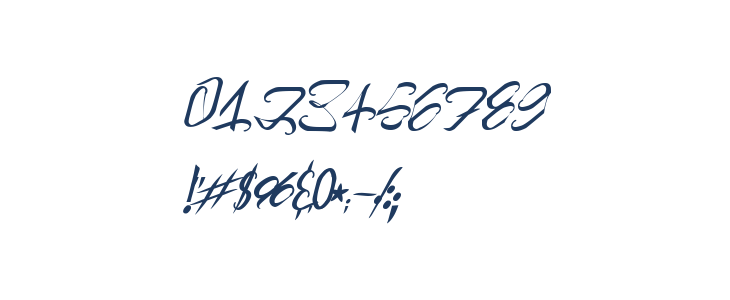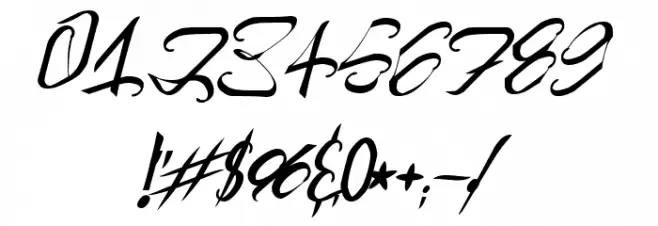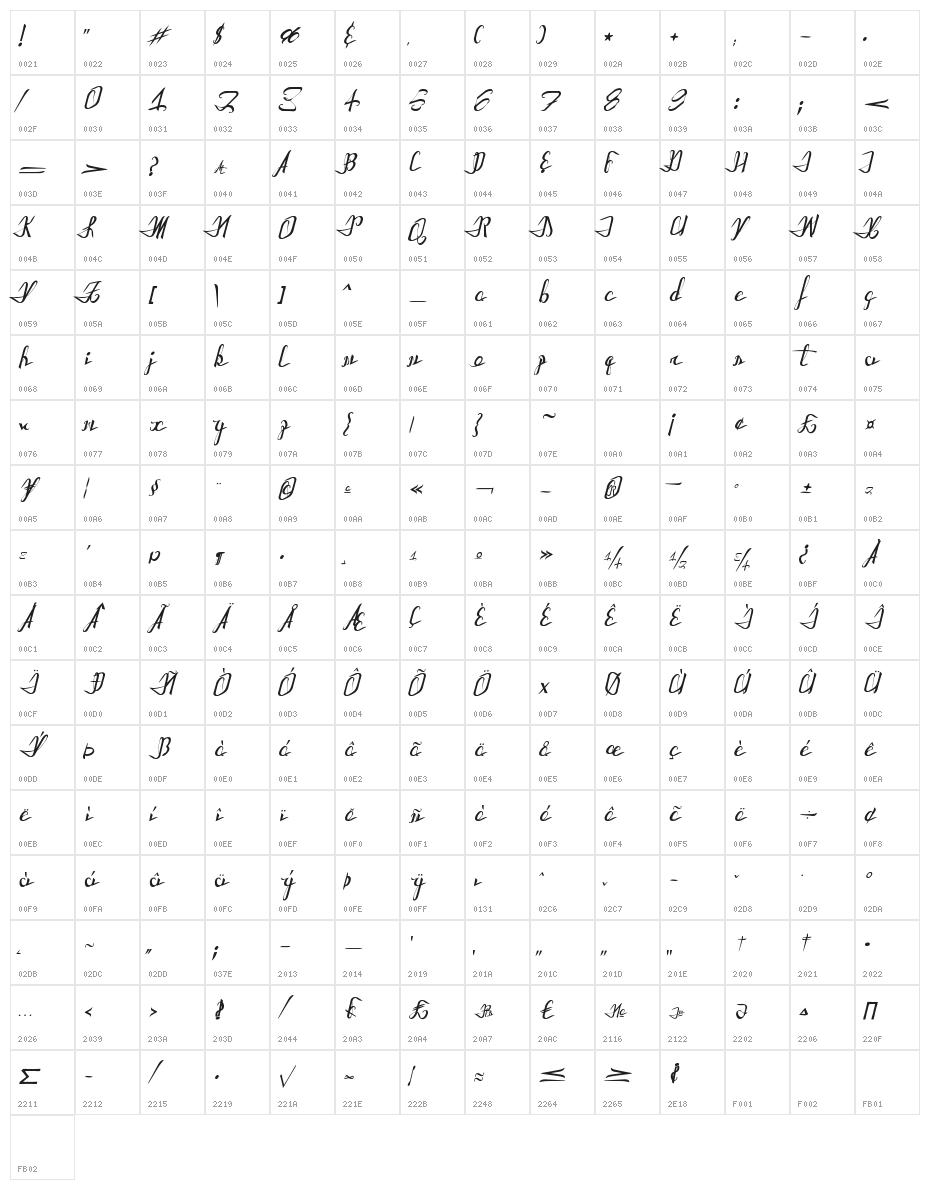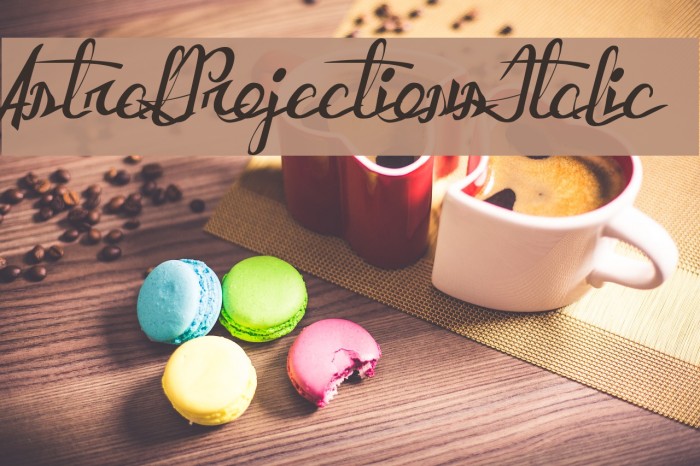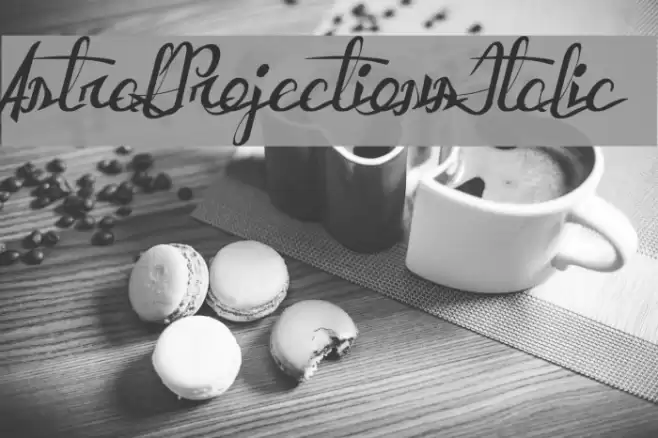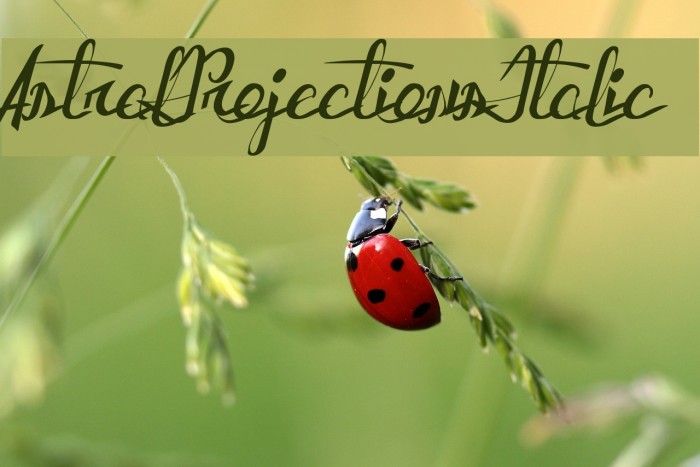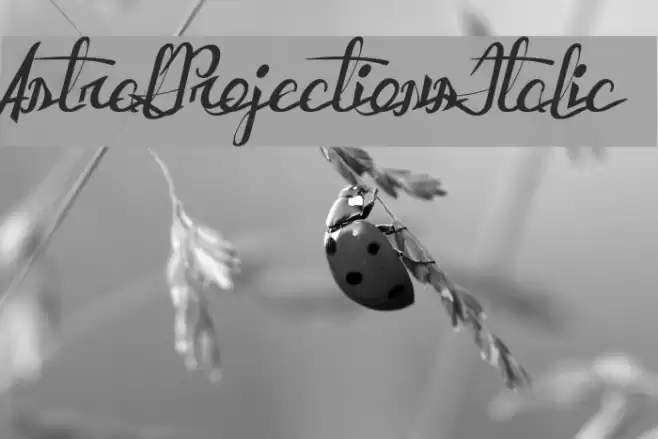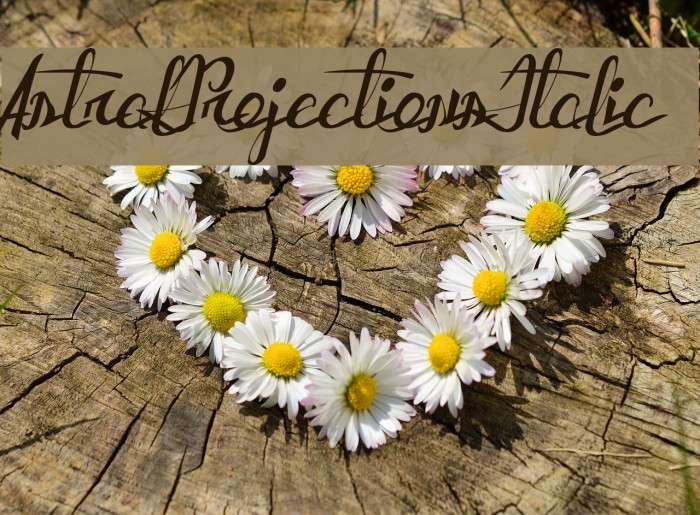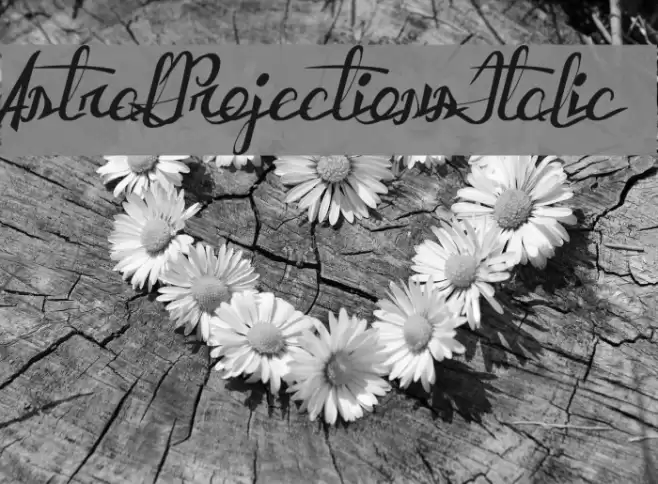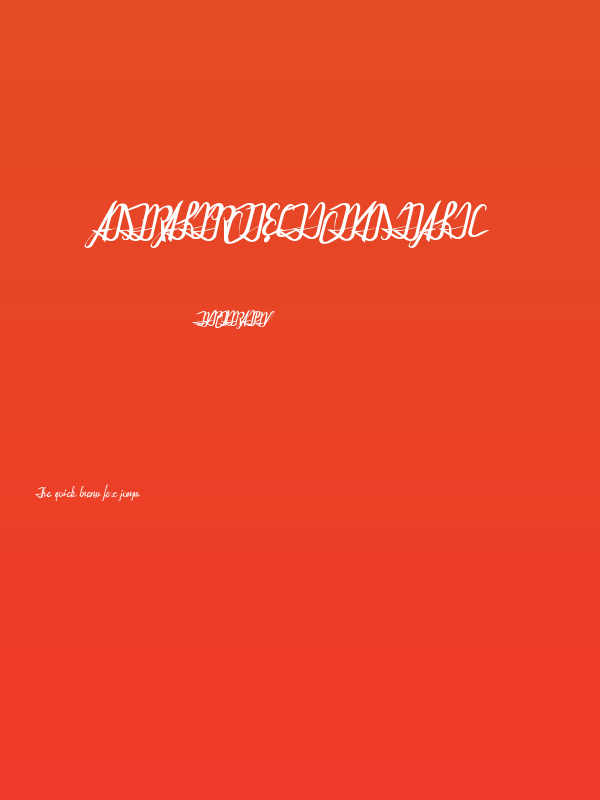
AstralProjectionsItalic Font
AstralProjectionsItalic Description
This font features a dynamic and fluid script style, characterized by its elegant and flowing letterforms. The uppercase letters exhibit a bold and confident presence, with sweeping curves and intricate connections between strokes. The lowercase letters maintain a harmonious balance, offering a slightly more delicate appearance while preserving the overall fluidity. Numbers and special characters are crafted with the same attention to detail, ensuring consistency across all glyphs. The italic slant adds a sense of motion and sophistication, making it ideal for projects that require a touch of elegance and flair.